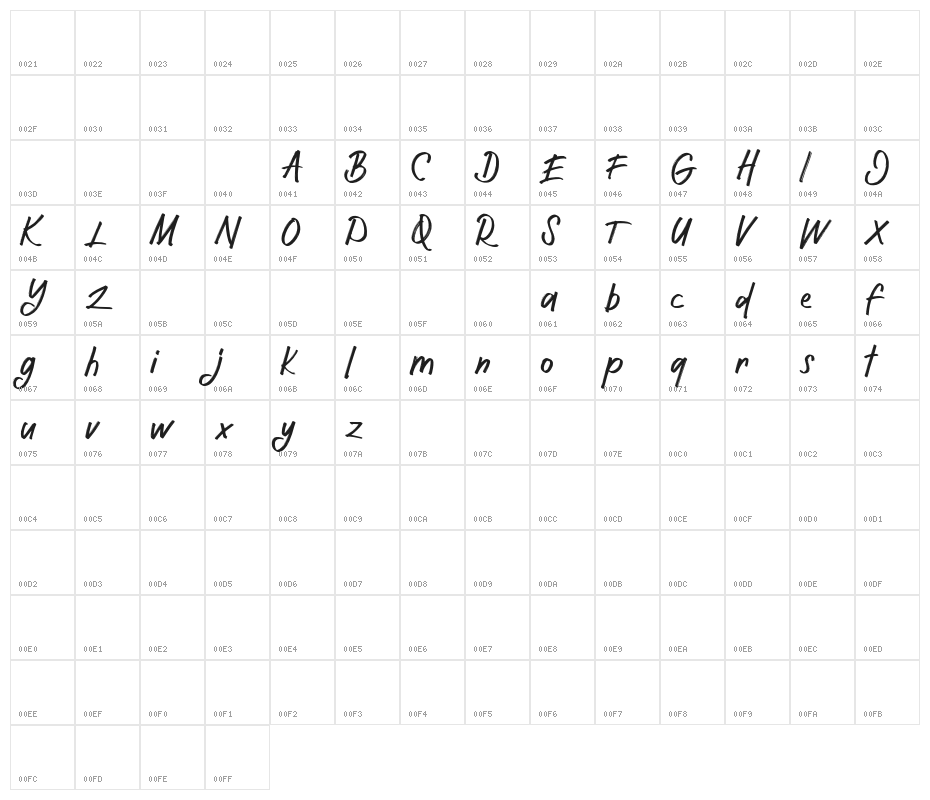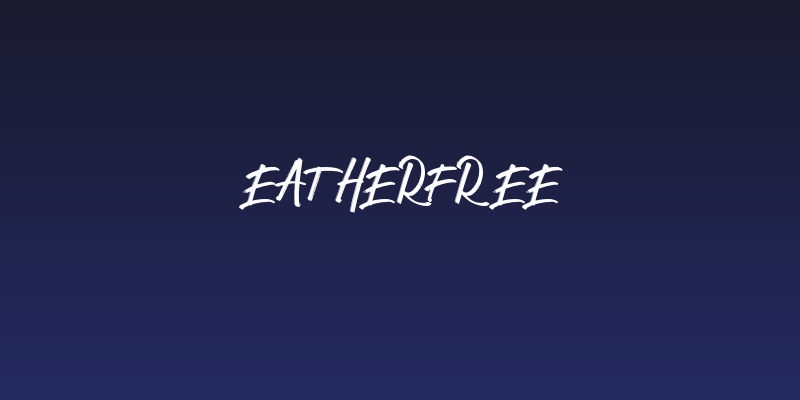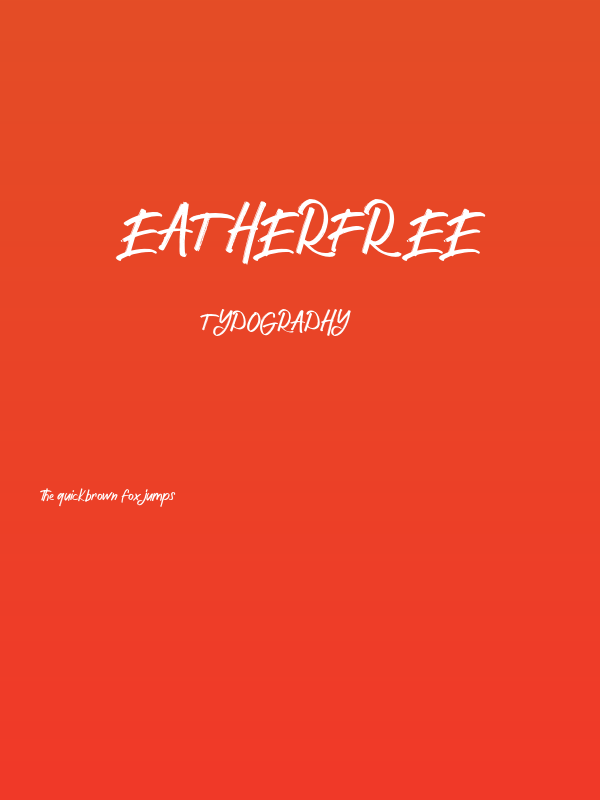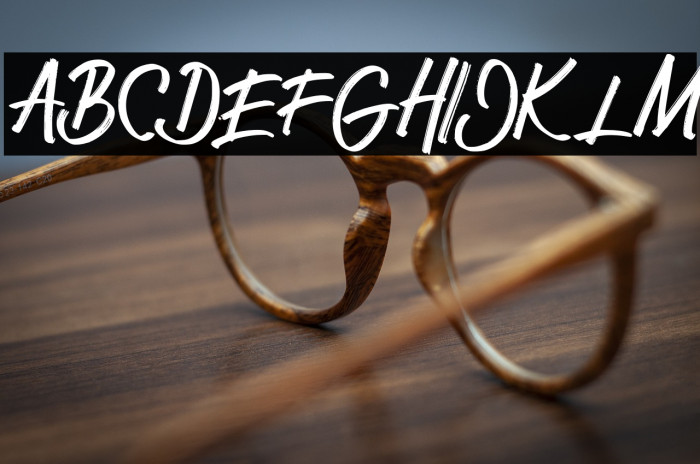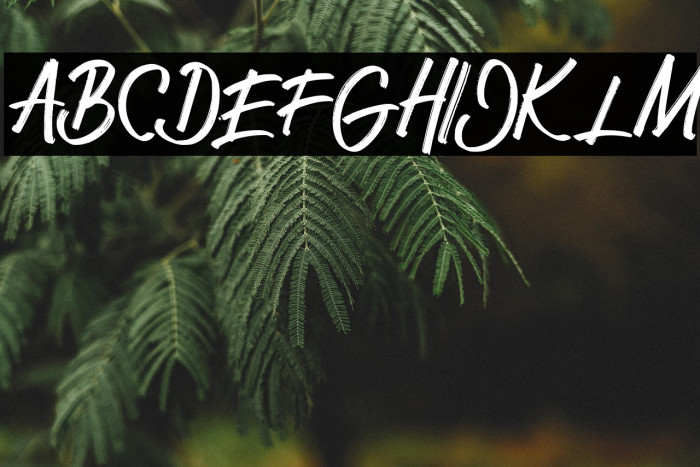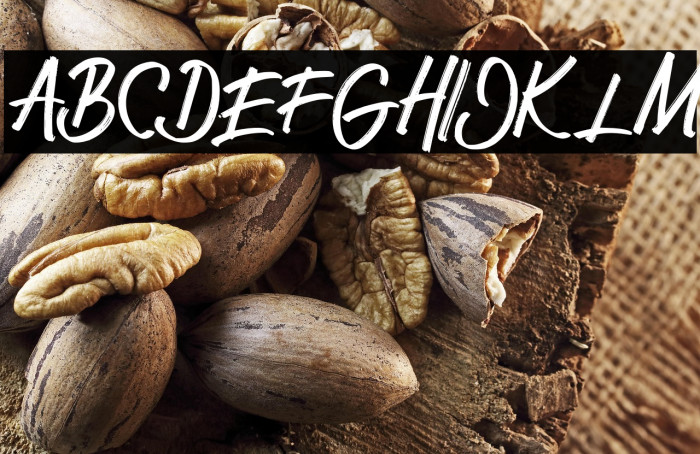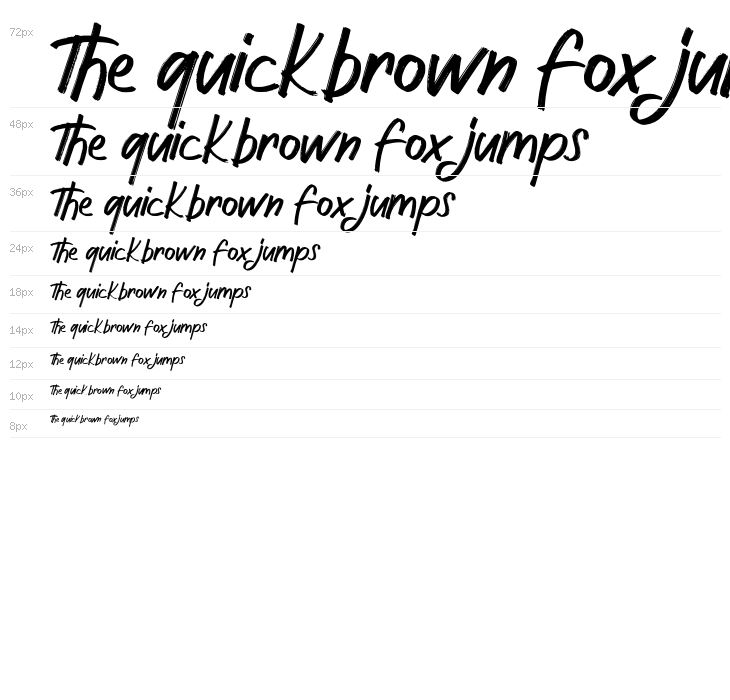
EatherFREE Font
EatherFREE Description
This font features a dynamic and expressive script style, characterized by its fluid and flowing letterforms. The strokes are bold and confident, with a slight slant that adds a sense of movement and energy. The uppercase letters are elegantly crafted, with distinctive loops and curves that give the font a unique personality. The lowercase letters maintain a consistent style, complementing the uppercase with their smooth connections and rounded forms. The overall appearance is both artistic and modern, making it suitable for a variety of creative applications.
| Proposed Projects | Ideal for branding, invitations, posters, and any project that requires a touch of elegance and creativity. |